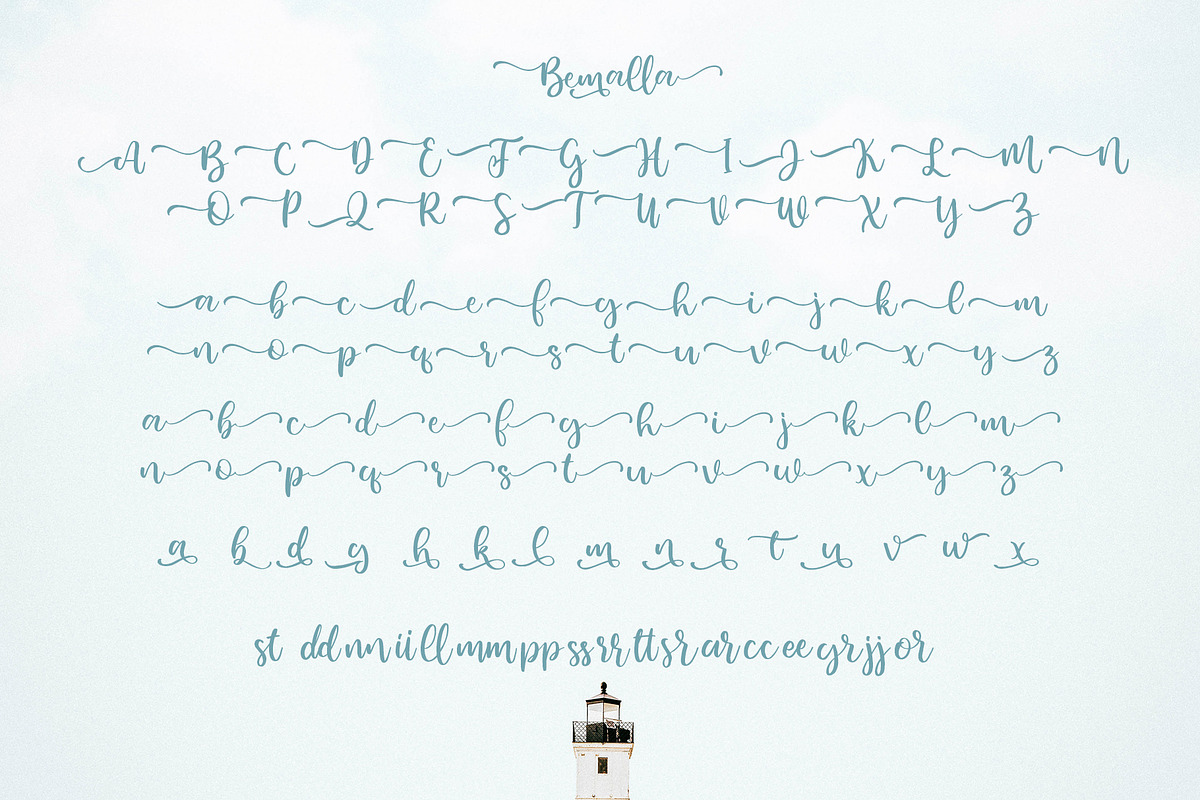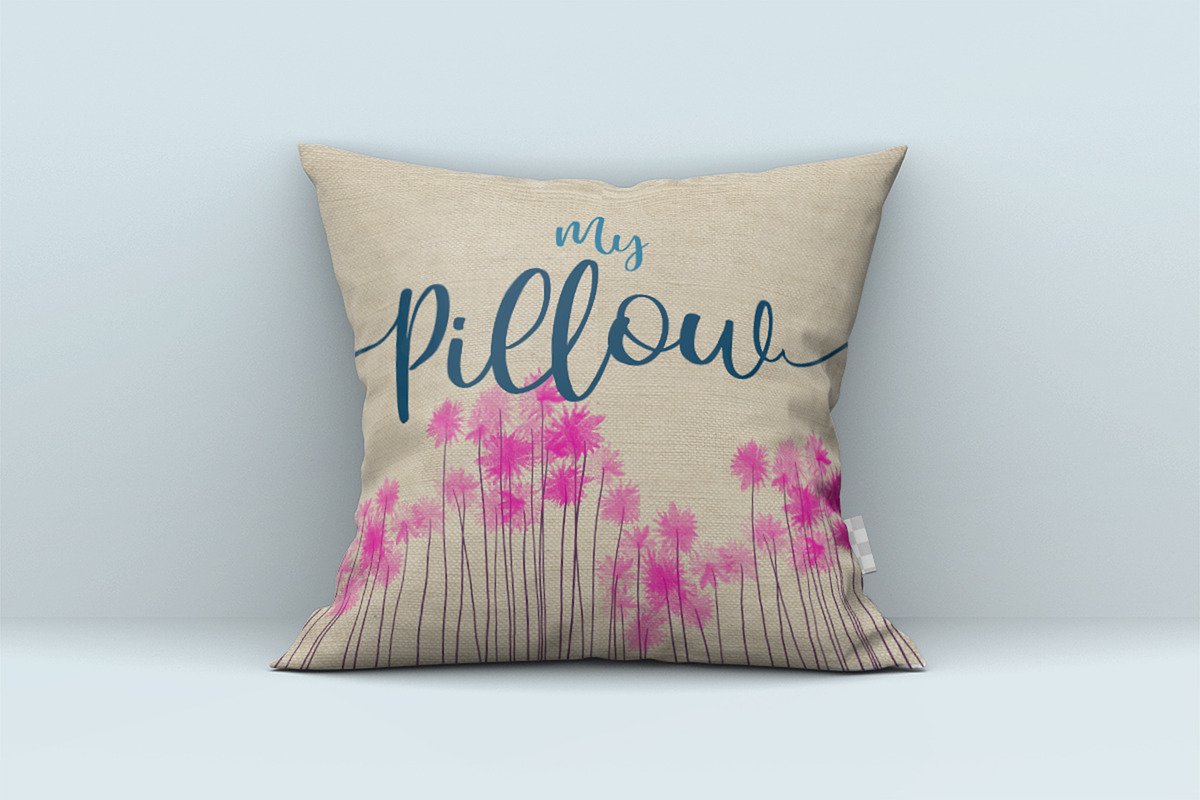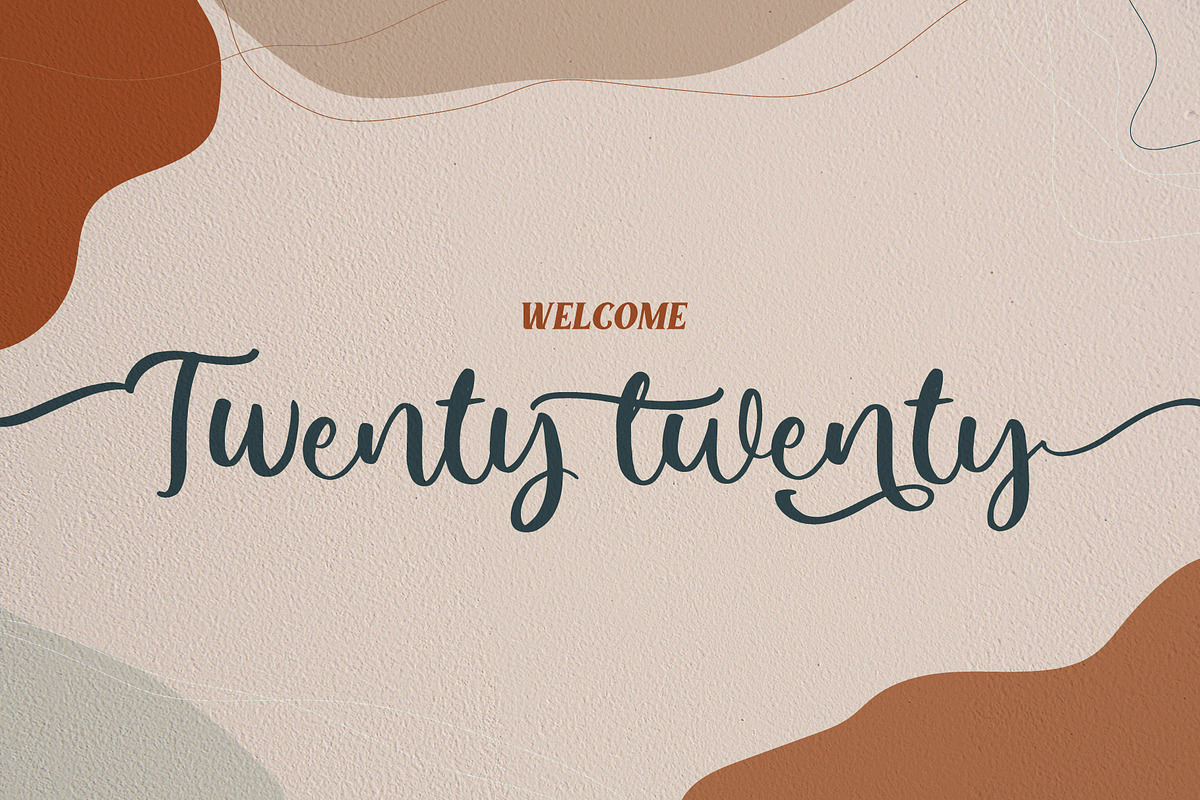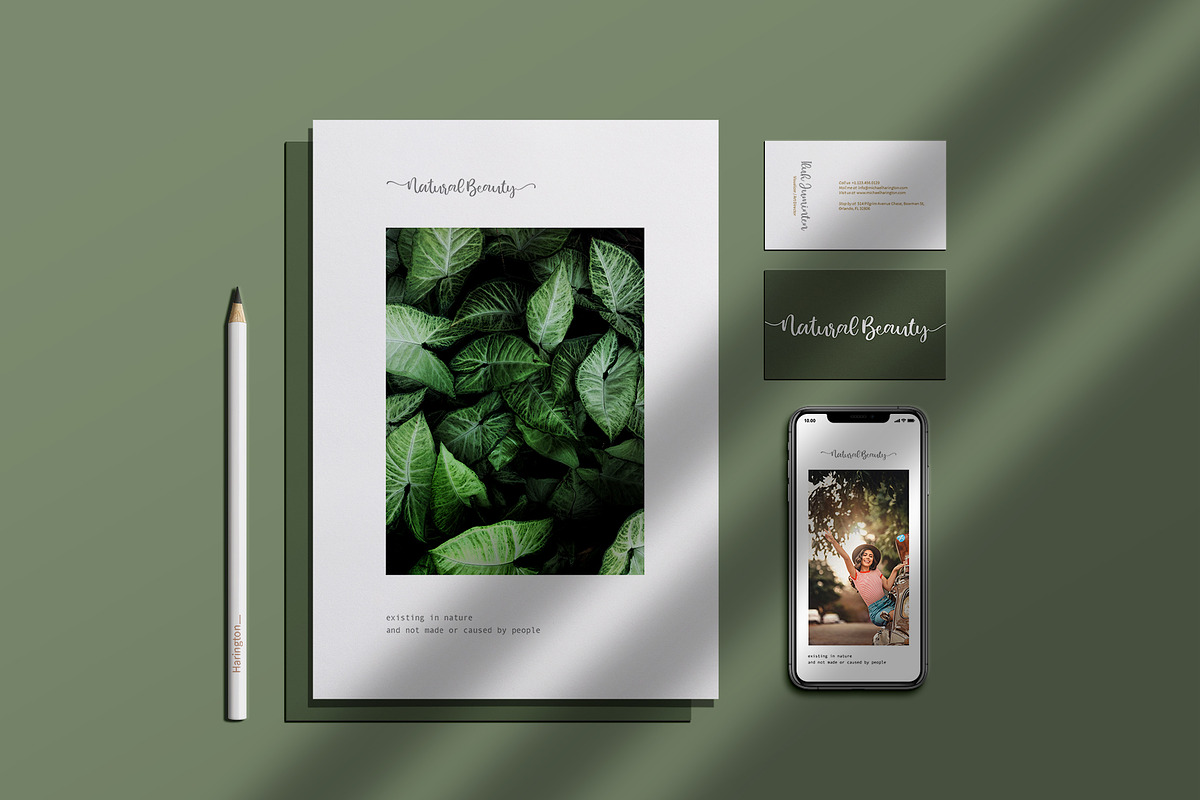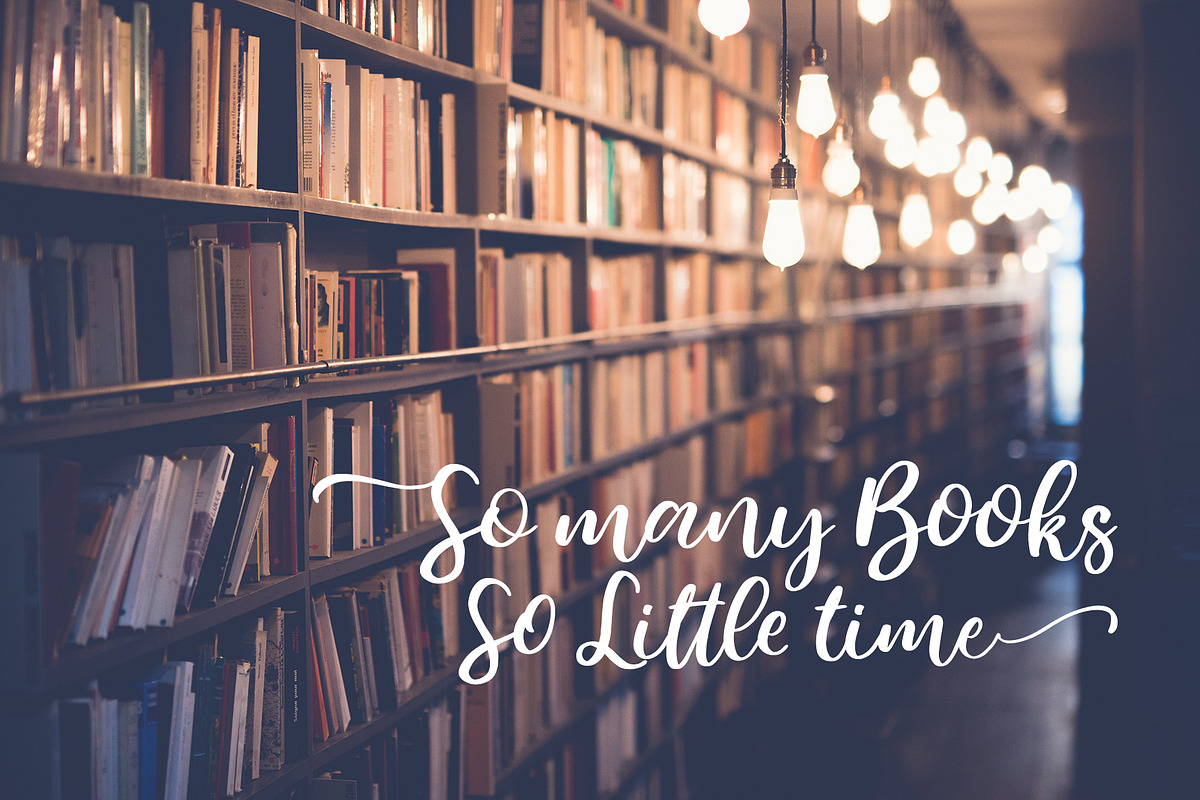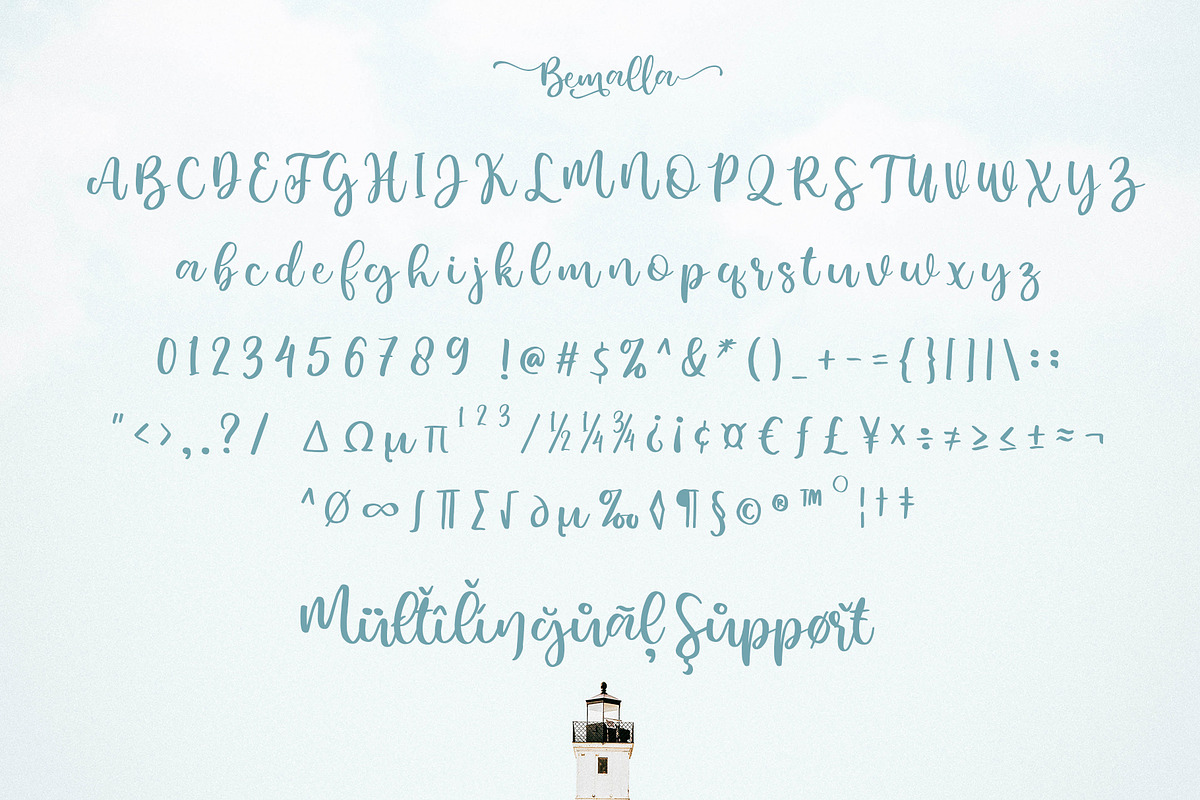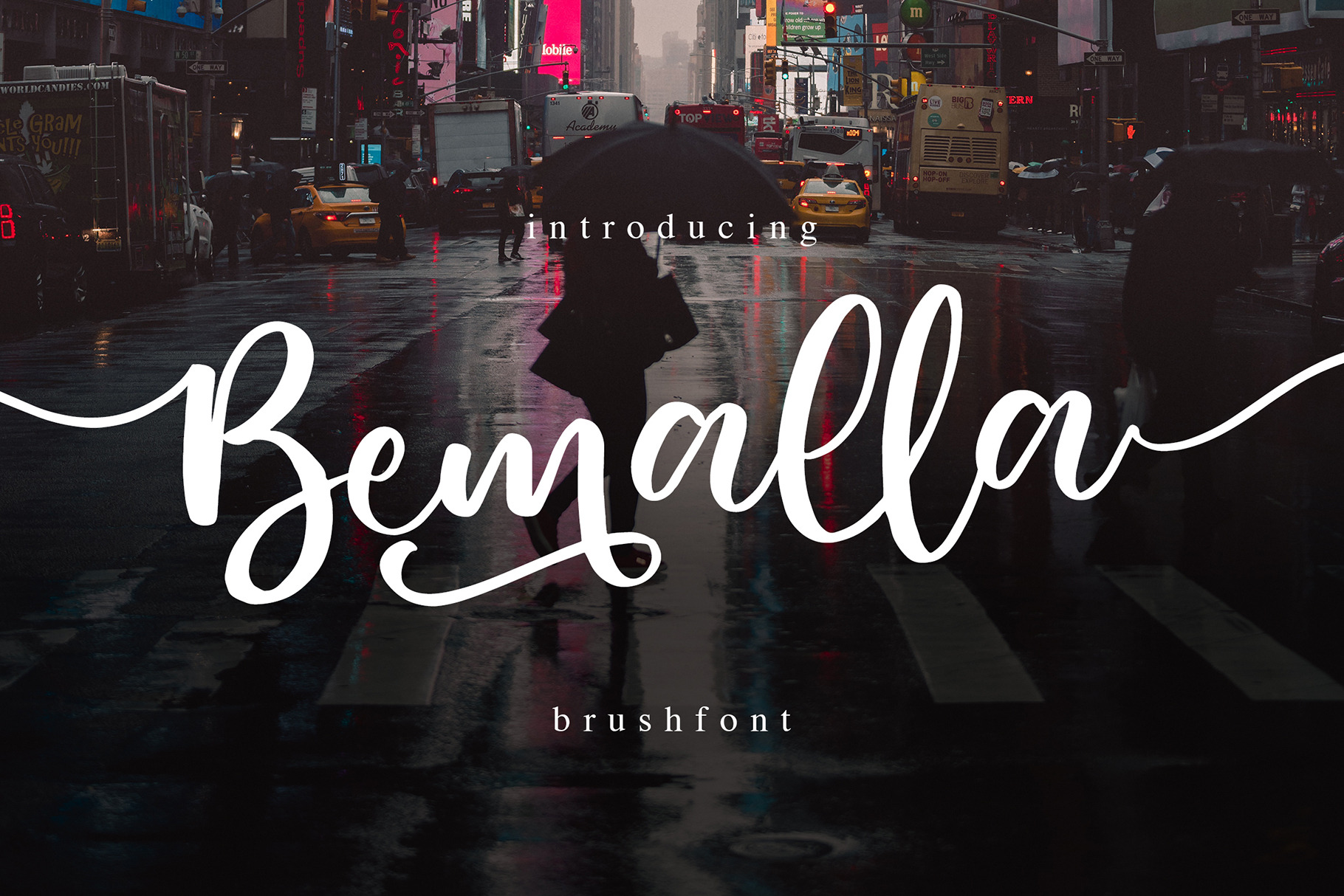
Bemalla font
Bemalla font is a brush script type font created with a natural brush. This font is very beautiful when combined with era now design concepts that use more natural colors like brown and dry green soil.
Bemalla fonts also have many alternative characters that you can use to decorate or beautify your writing. Bemalla fonts are very suitable to be a collection in the stock font that you have.